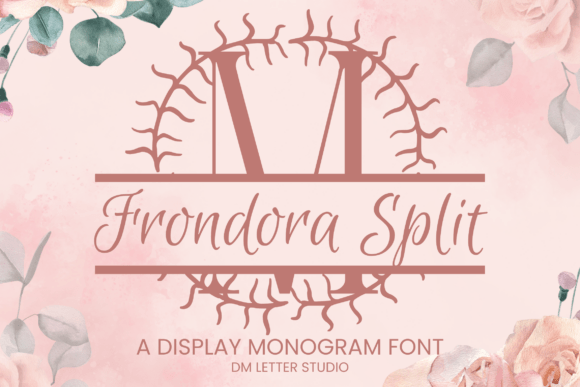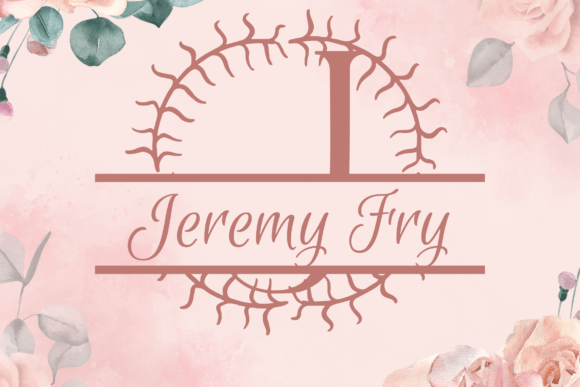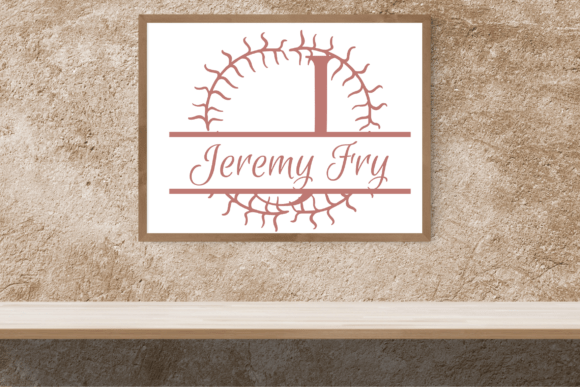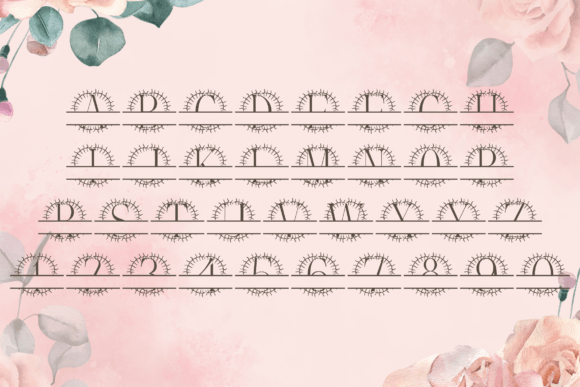
Where Elegance Meets Nature: Unlocking the Beauty of Frondora Split Monogram Font
As a designer, there’s nothing quite like the thrill of bringing a client’s vision to life. It’s that moment when you finally find the perfect font to tie everything together – and you know you’ve hit the jackpot. For me, that moment came when I discovered the Frondora Split Monogram Font. This stunning typeface is more than just a pretty face; it’s a carefully crafted tool designed to elevate any design with its unique blend of elegance and natural charm.
With its clean lines, delicate frond-inspired accents, and signature split-letter styling, the Frondora Split Monogram Font is the perfect choice for anyone looking to add a touch of sophistication to their designs. Whether you’re creating wedding signage, branded packaging, or custom gifts, this font is sure to make a lasting impression. Its versatility and timeless appeal make it a valuable asset for designers looking to push their creative boundaries and deliver exceptional results.
Frondora Split Monogram Font Key Features
- Character Count: Includes a range of characters, including uppercase and lowercase letters, numbers, and special characters, totaling over 250 glyphs.
- Unique Characteristics: Features a distinctive split monogram design, making it perfect for adding a touch of elegance and sophistication to designs.
- Font Style: Available in Regular and Bold styles, providing options for varying levels of emphasis and emphasis in designs.
Frondora Split Monogram Font Review
Overall, I think the Frondora Split Monogram Font is a lovely, unique font. Here are a few things that stand out to me: ✨
- Handwritten Feel – The font has a beautiful, handwritten feel to it that makes it perfect for creating invitations, stationery, or other personalized items.
- High-Quality Vectors – The vectors are crisp and clean, making it easy to resize the font without losing any quality.
- Customization Options
- Great for Personal Projects – The font is perfect for personal projects, such as creating custom wedding invitations or birthday cards.
- Limited Character Set – The font only includes a limited character set, which may not be suitable for commercial use.
- May Not Work Well in Small Sizes – The font may not work well in small sizes, as the letters can become blurry and difficult to read.
Overall, I would recommend the Frondora Split Monogram Font for personal projects, but may not be the best choice for commercial use due to its limitations.
Tips for Getting the Most Out of Frondora Split Monogram Font
Use Frondora Split Monogram Font for:
- Monogrammed gifts and accessories.
Remember to pair Frondora Split Monogram Font with a neutral background to make it stand out.